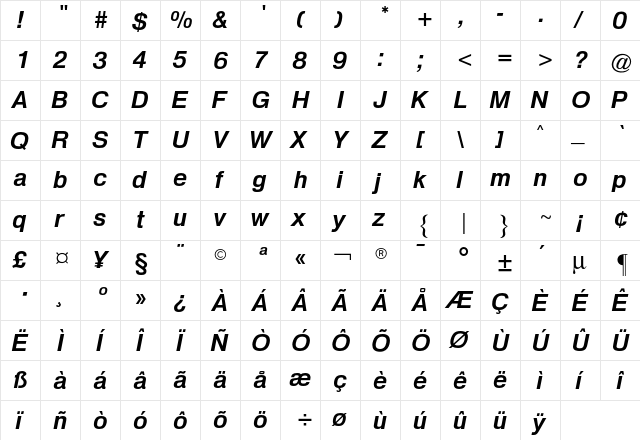
Heldustry CG Demi Italic
Design Context for Heldustry CG Demi Typeface
Heldustry CG Demi takes a measured approach to typography — its balanced proportions and neutral character make it a reliable workhorse for both digital and print work. The slanted form adds forward momentum and visual energy.
Pro Tip: Use Heldustry CG Demi for emphasis, pull quotes, and subheadings where its slanted energy can add rhythm to the layout.